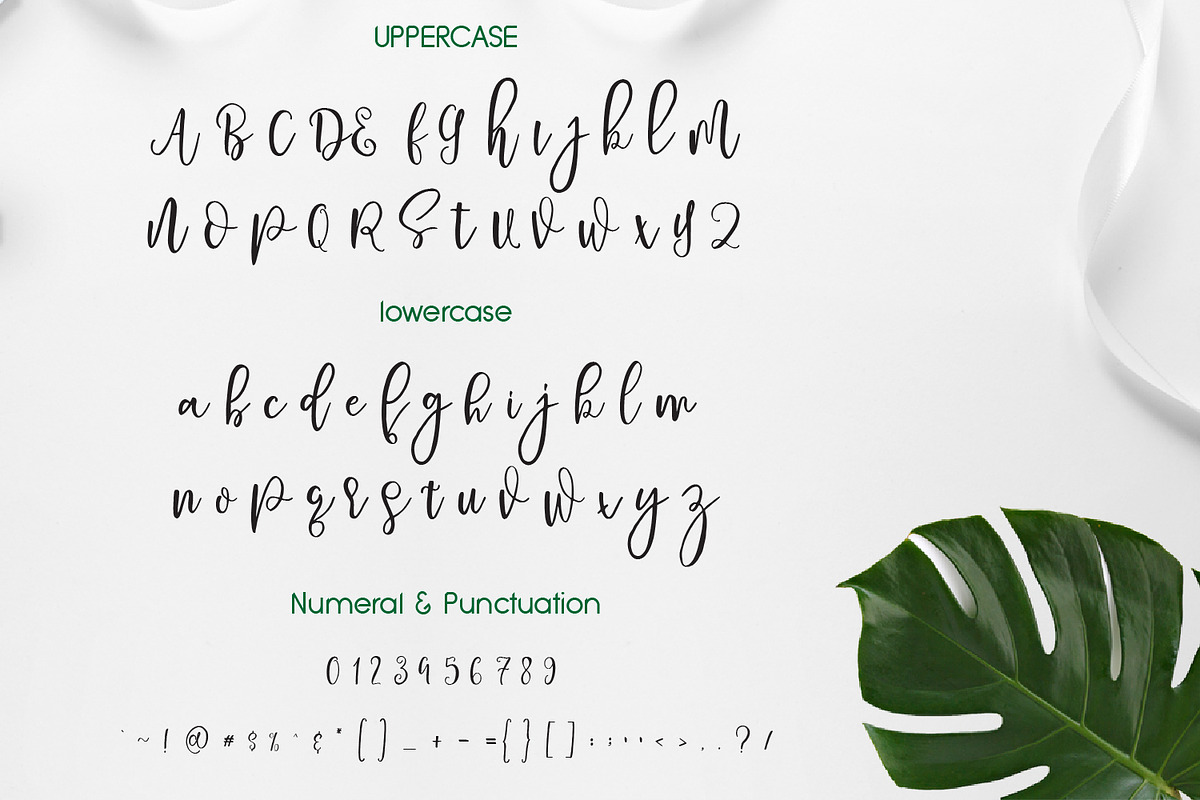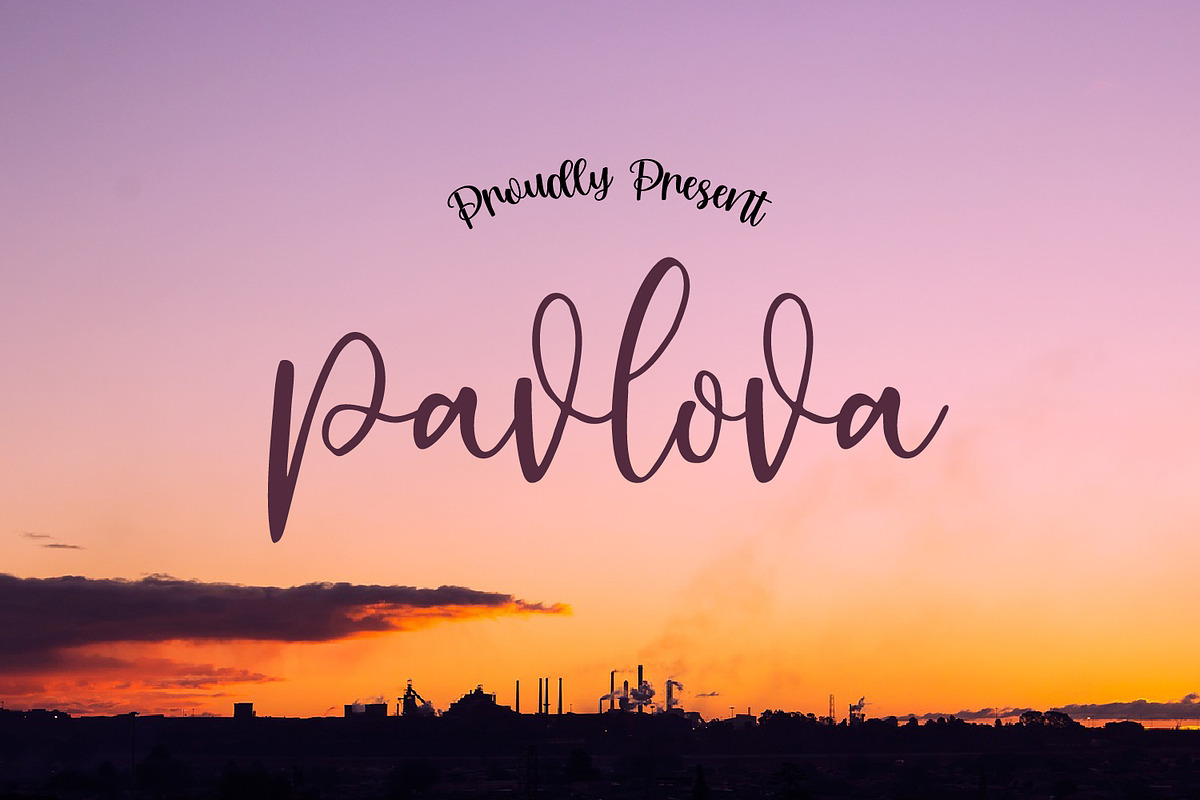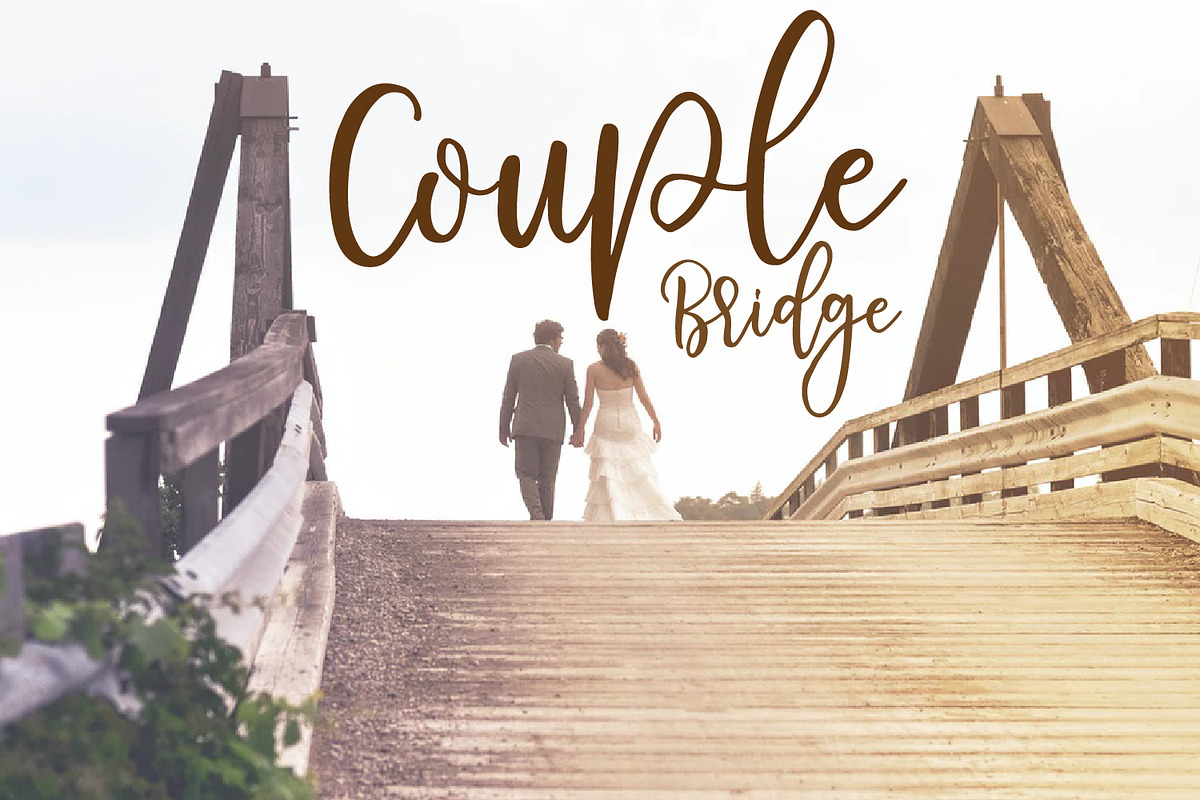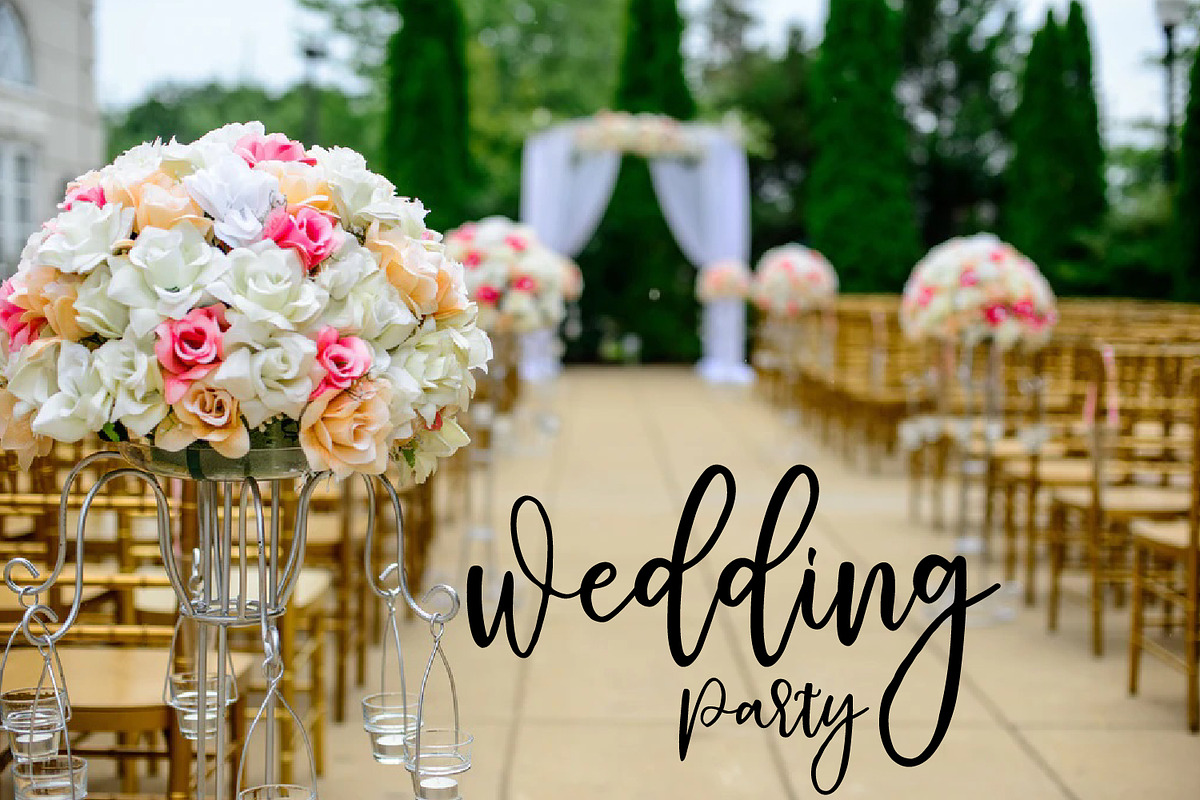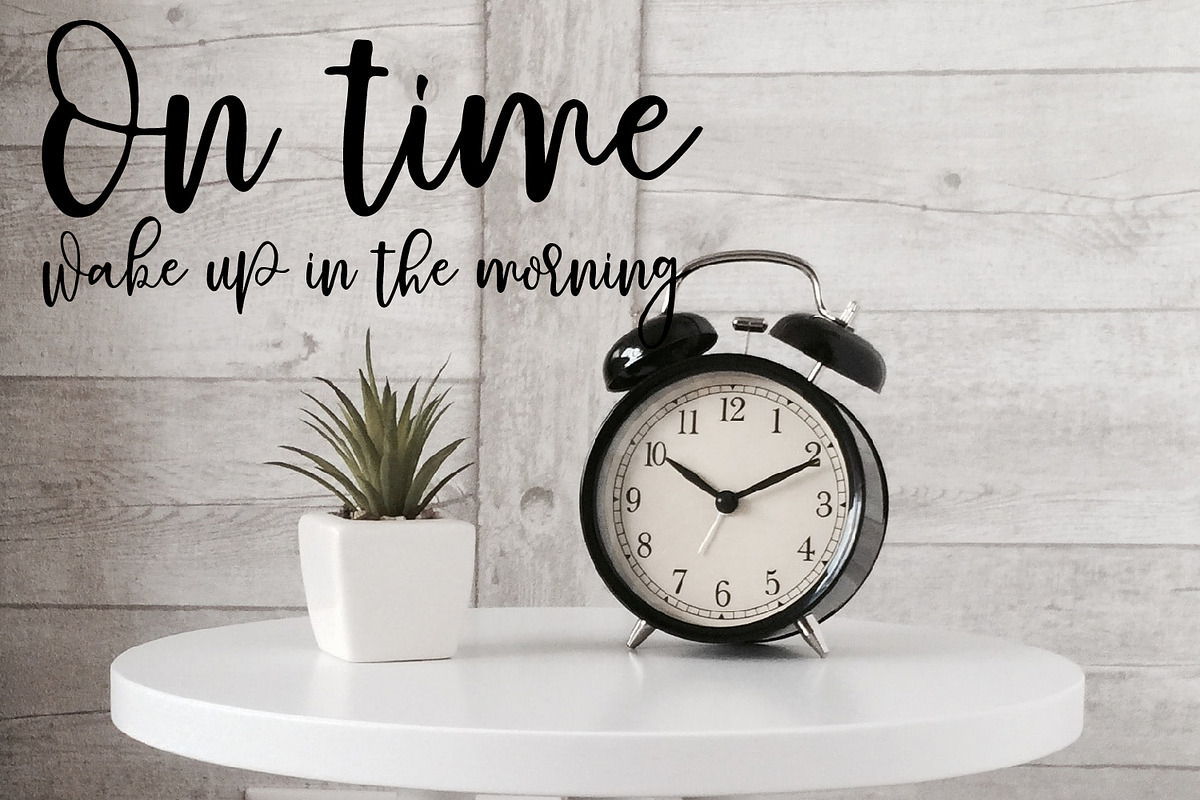
Pavlova Script
Pavlova is a lovely and timeless handwritten font. It is the best choice for creating eye catching logos, branding and quotes. Every letter has a unique and beautiful touch, which will make your design come alive!